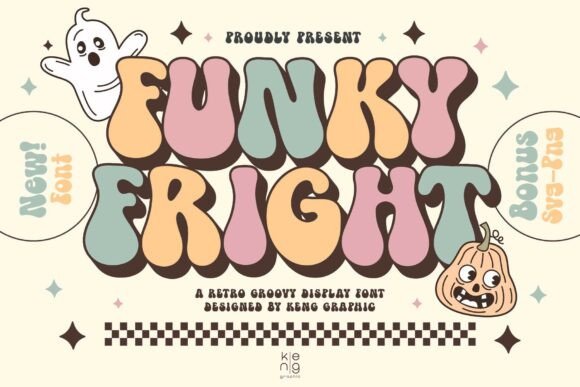
Funky Fright Font: Unleash the Retro Groove in Your Designs
Are you looking to add a dash of nostalgia to your designs? Do you want to make your posters, cards, and signage stand out with a bold and eye-catching font? Look no further than Funky Fright, a retro groovy display font that’s sure to bring the vivid energy of the past to your creative projects.
What is Funky Fright Font?
Funky Fright is a unique and stylish display font that’s perfect for adding a touch of retro flair to your designs. With its bold character and groovy style, it’s guaranteed to make your design project beam, grab eyeballs, and leave an unforgettable impression.
Ideal for a Variety of Design Projects
Funky Fright is an incredibly versatile font that can be used for a wide range of design projects. Here are some ideas to get you started:
- Posters: Add a bold and eye-catching title to your poster with Funky Fright. Perfect for concerts, festivals, or movie promotions.
- Festive Cards: Give your holiday cards a retro twist with Funky Fright. Ideal for Christmas, Halloween, or birthday cards.
- Promotional Signage: Make your signage stand out with Funky Fright. Perfect for store promotions, sales, or events.
- Creative Ventures: Add a touch of panache to your creative projects, such as brochures, flyers, or social media graphics.
The Benefits of Using Funky Fright Font
So why choose Funky Fright for your design projects? Here are just a few benefits of using this amazing font:
- Unique Style: Funky Fright has a one-of-a-kind style that’s sure to make your designs stand out.
- Bold Character: The font’s bold character ensures that your text will be noticed and remembered.
- Retro Flair: Add a touch of nostalgia to your designs with Funky Fright’s retro groovy style.
- Easy to Read: Despite its bold style, Funky Fright is easy to read, making it perfect for use in a variety of design projects.
Tips for Using Funky Fright Font
Here are a few tips for getting the most out of Funky Fright:
- Use it as a Title Font: Funky Fright is perfect for use as a title font. Use it to add a bold and eye-catching title to your design project.
- Pair it with a Simple Font: For body text, pair Funky Fright with a simple font to create a striking contrast.
- Experiment with Colors: Funky Fright looks great in a variety of colors. Experiment with different colors to find the one that works best for your design.
- Use it Sparingly: While Funky Fright is a bold font, it can be overwhelming if used too much. Use it sparingly to create a striking impact.
Immerse Your Designs in the Vivid Energy of the Past
Funky Fright is more than just a font – it’s a way to immerse your designs in the vivid energy of the past. With its retro groovy style, it’s sure to bring back memories of the good old days.
Whether you’re a designer, artist, or simply someone who loves to create, Funky Fright is the perfect way to add a touch of nostalgia to your work. So why not give it a try and see how it can elevate your designs?
In conclusion, Funky Fright is an amazing font that’s perfect for adding a touch of retro flair to your designs. With its bold character, unique style, and ease of use, it’s sure to make your design project stand out.